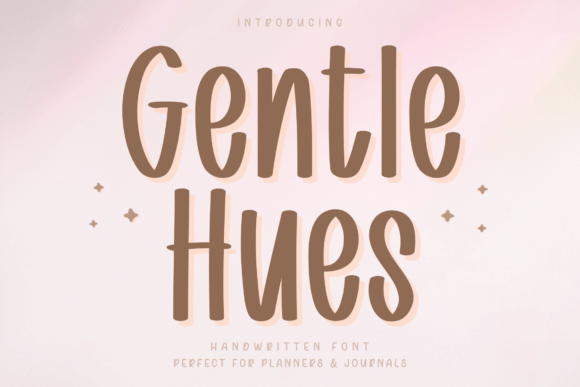
Find Your Calm in the Creative Chaos
There’s nothing quite like the thrill of brainstorming a new project, but have you ever found yourself overwhelmed by the endless possibilities and fonts to choose from? For creatives, the pressure to produce can be daunting, but the right tools can make all the difference. When you need to bring your ideas to life, a well-designed font can be the perfect companion.
Enter Gentle Hues Font, a soft and clean handwritten font designed to bring a sense of calm and organization to your creative projects. With its smooth curves and simple letterforms, Gentle Hues Font offers a natural handwritten style while maintaining excellent clarity and readability. Whether you’re a designer, artist, or simply someone who loves to jot down notes, Gentle Hues Font is a valuable addition to your toolkit.
Gentle Hues Font Key Features
- Size: The font family consists of 12 weights, ranging from Extra Light to Extra Bold, providing ample options for designers to achieve the perfect visual balance.
- Unique Characteristics: The font’s distinctive, hand-drawn feel and subtle color variations make it perfect for creating a warm, inviting atmosphere in designs.
- Scalability: The font’s carefully crafted design ensures that it remains legible and visually appealing at various font sizes, from 8pt to 72pt and beyond.
Gentle Hues Font Review
Gentle Hues Font is a charming and elegant script font that has captured my attention. ✨ I love how it adds a touch of sophistication to any design project. The font’s soft, rounded edges and subtle curves create a calming atmosphere that’s perfect for branding, packaging, or editorial design.
Here are some of the things that work well for me:
- ✨ Elegant and refined design aesthetic
However, there are some limitations that I’ve noticed:
- ⚠️ Limited customization options, which might not appeal to designers who want more control
- ⚠️ Some characters may appear inconsistent in terms of spacing and alignment
- ⚠️ Not ideal for bold or dramatic typography, as it can become overwhelmed
Overall, I think Gentle Hues Font is a lovely addition to any designer’s toolkit. While it may not be perfect, it’s a great choice for projects that require a touch of elegance and refinement. With a little creativity and experimentation, you can unlock its full potential and create stunning designs that showcase its unique charm.
For a more professional look, use Gentle Hues Font in conjunction with a clean background and minimal graphics.
For a more creative look, experiment with layer blending modes and effects to enhance the Gentle Hues Font.
For a more polished look, use Gentle Hues Font in conjunction with a clear and concise layout.
Gentle Hues Font is ideal for:
- Birth announcements and baby shower invitations.
- Blog and social media posts for a creative and feminine touch.
Remember to use Gentle Hues Font in moderation and balance it with other design elements to avoid overwhelming the viewer.